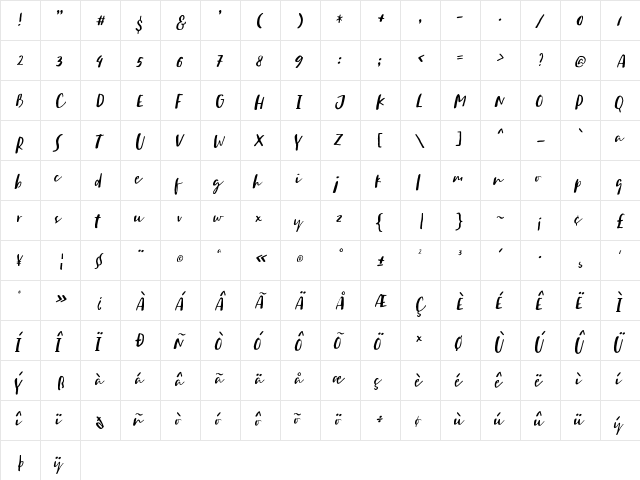
Sachie Script Regular
Design Context for Sachie Script Typeface
Sachie Script brings a calligraphic fluidity to the page — its connecting strokes and expressive curves give it an unmistakably human quality.
Font Pairing: Combine Sachie Script with a simple geometric sans for maximum contrast — the tension between flowing curves and clean structure is a classic typographic pairing.
Pro Tip: Use Sachie Script for short runs of text — names, titles, or taglines. Extended body copy in script faces tires the eye quickly.